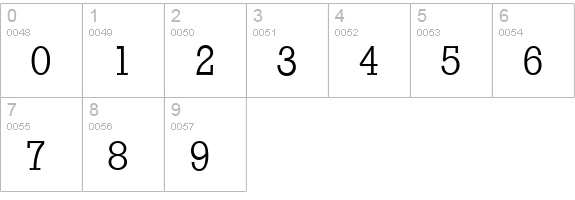
StaffordSerial-Light-Regular is a refined, elegant variant in the StaffordSerial typeface family \xE2\x80\x94 well suited to elegant body text, refined sub-headings, and luxury branding.
StaffordSerial-Light-Regular is a sleek and modern font that exudes elegance and sophistication. With its clean lines and balanced proportions, this typeface is perfect for a wide range of design projects, from branding to editorial design. The light weight of the font adds a touch of delicacy and refinement to any text it is applied to. What makes StaffordSerial-Light-Regular even more appealing is that it is available for free download at FontsMarket.com. This means that designers and creatives alike can easily access this beautiful font without any cost, making it a valuable addition to their font library. So go ahead and enhance your designs with StaffordSerial-Light-Regular today!